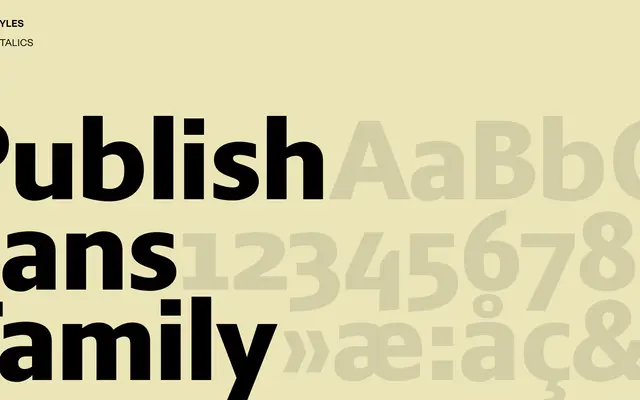
Publish Sans
A sans-serif from Copenhagen foundry Playtype intended for editorial and publishing contexts.
Playtype's Publish Sans is positioned around editorial and publishing use, as suggested by its name and the foundry's broader catalogue of refined, Scandinavian-inflected typefaces. The scraped page content does not detail specific weights, widths or language support, making a full technical assessment difficult. Playtype's general output is professional and considered, placing this in solid if unremarkable territory.
The name and foundry context suggest a sans-serif designed for publishing and editorial use; without more specific data, a humanist sans classification is most probable given the editorial framing.